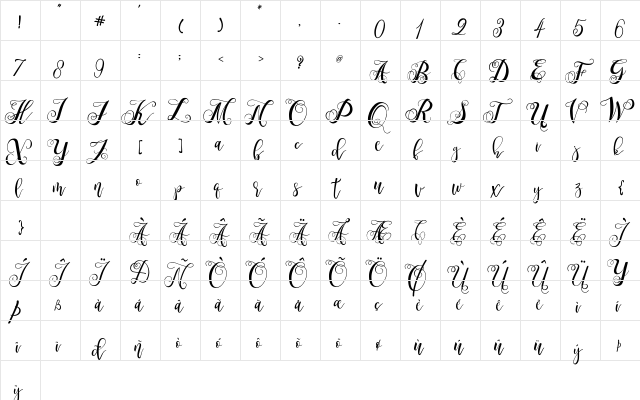
Marmia Regular
| Foundry | Kotak Kuning Studio |
| Designer | Arif Dwi |
Design Context for Marmia Typeface
Marmia is a composed and adaptable typeface that performs quietly and consistently across a wide range of design contexts.